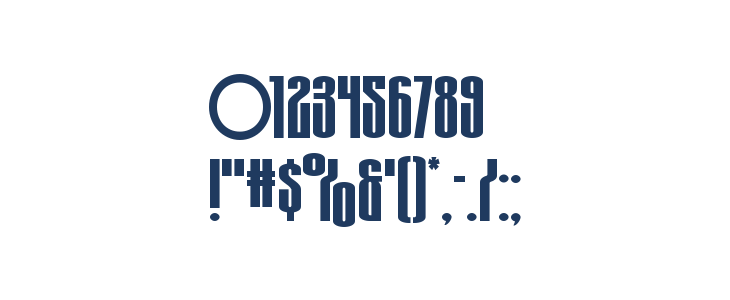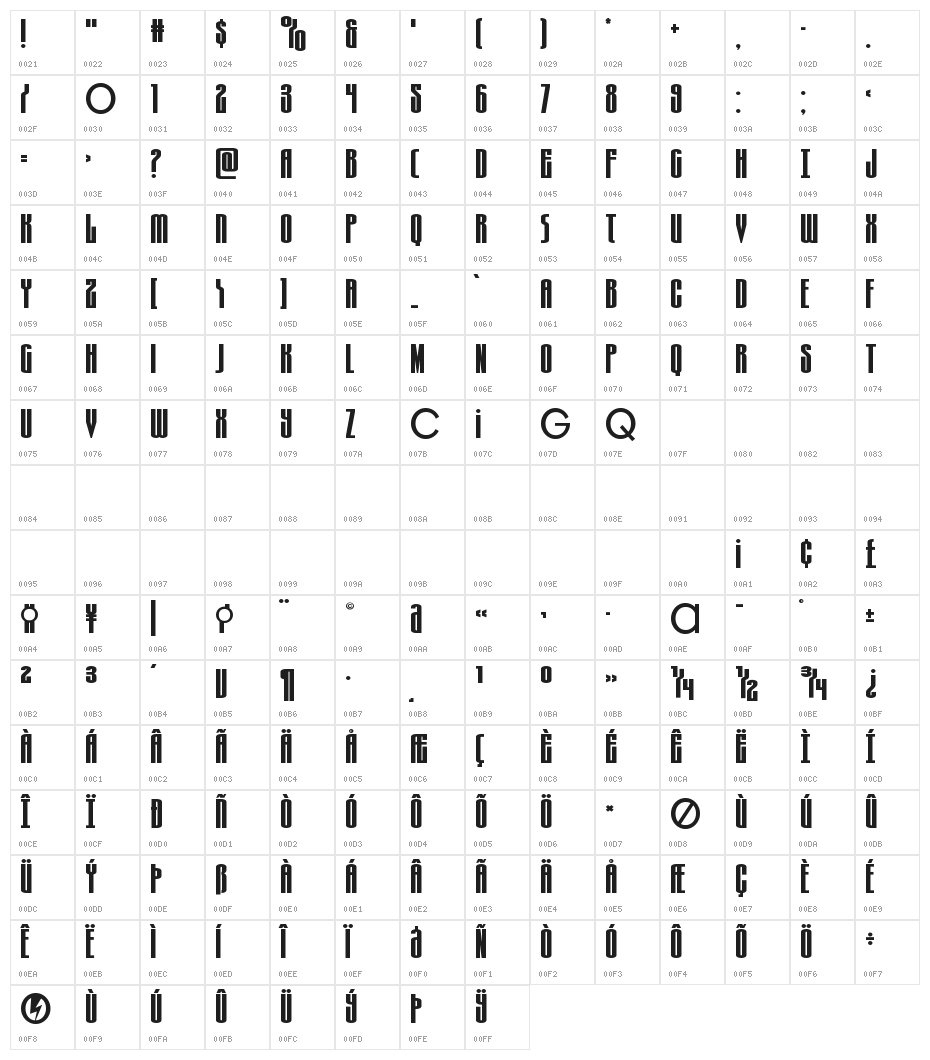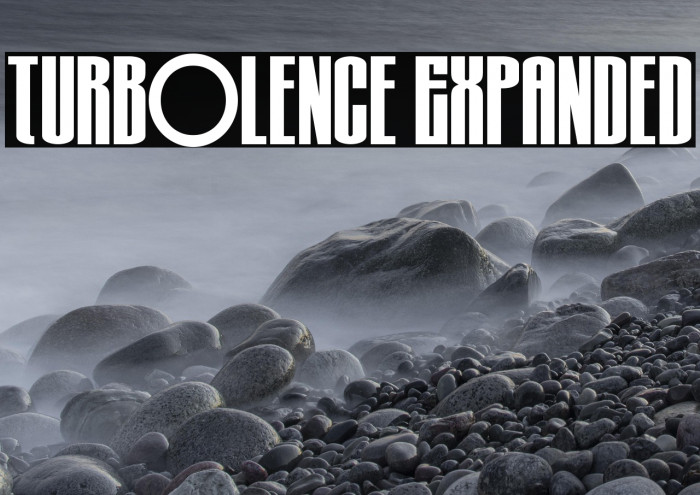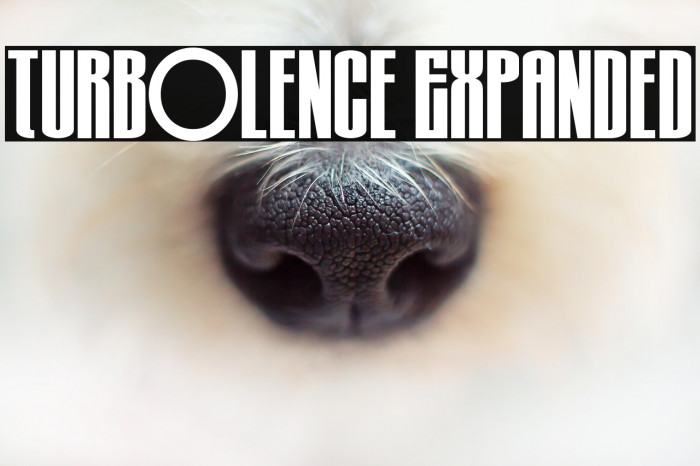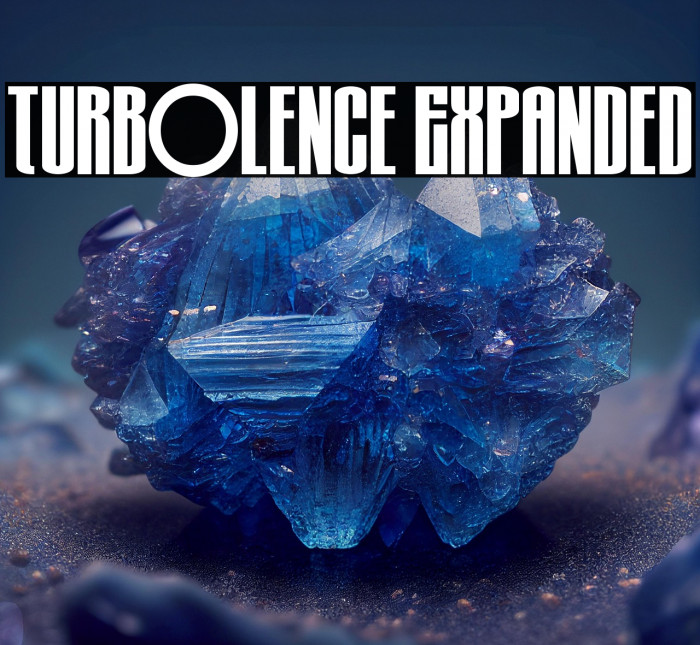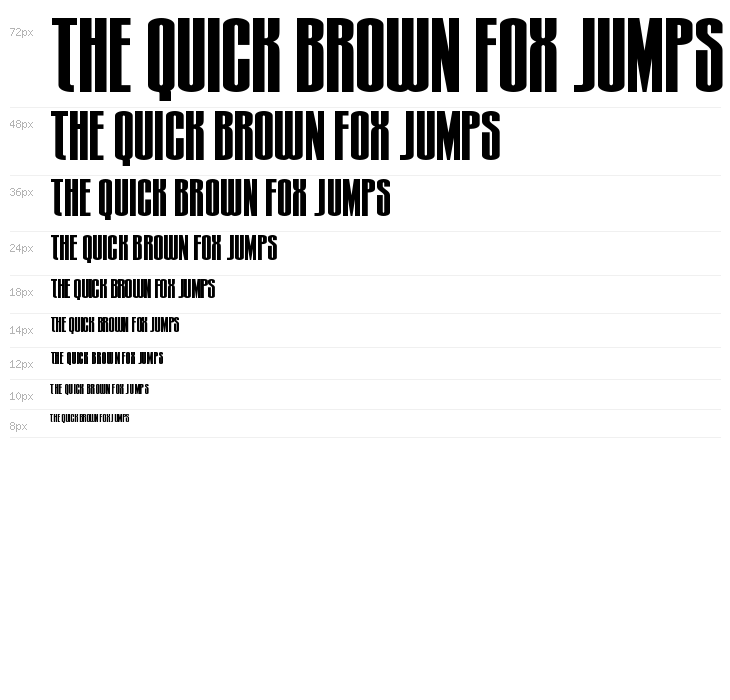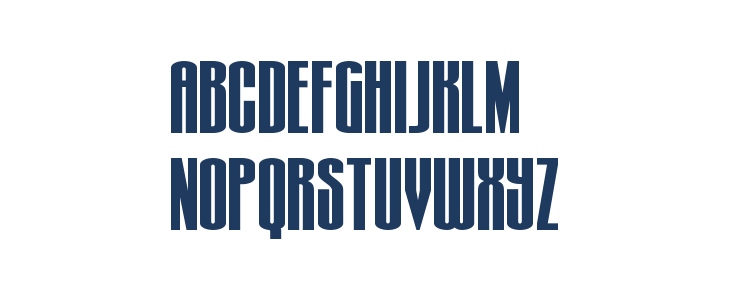
Turb0lence Expanded Font
Turb0lence Expanded Description
This font features a bold and striking design with an expanded width, giving it a commanding presence. The characters are tall and narrow, with a strong vertical emphasis that enhances their imposing appearance. The strokes are consistent in thickness, providing a uniform look across all characters. The uppercase letters are particularly prominent, while the lowercase letters maintain the same boldness and width. The numbers and special characters are designed to match the overall style, ensuring cohesion throughout. This font's unique style makes it ideal for projects that require a bold statement.